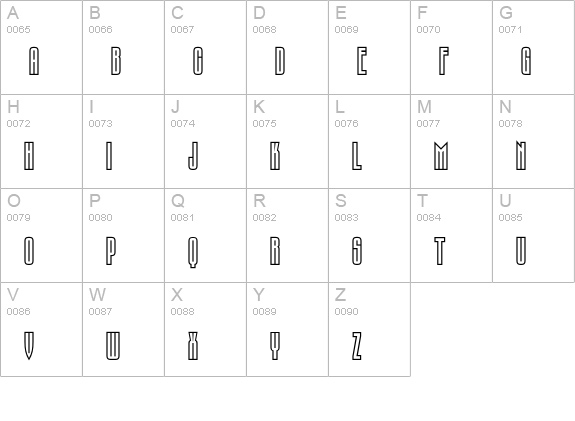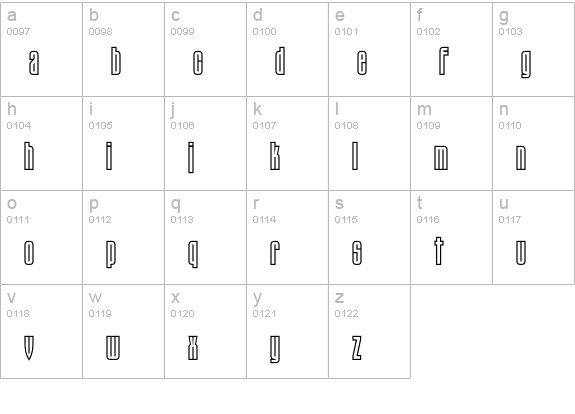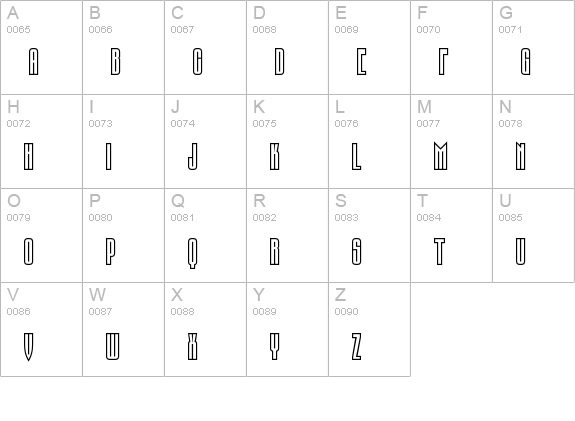
PT Tauern Cyrillic Font Details
PT Tauern Cyrillic is a stunning font that combines elegance and versatility. Its fluid and graceful letterforms make it perfect for a variety of design projects, from branding and packaging to editorial and web design. The font's unique blend of classic and modern elements adds a touch of sophistication to any visual composition. What sets PT Tauern Cyrillic apart is that it is not only visually appealing but also free to use. This means that designers and creatives can access this exceptional font without any cost or restrictions. It's a valuable resource for those who want to enhance their designs with a touch of refined typography. Whether you're working on a personal project or a professional assignment, PT Tauern Cyrillic can elevate your work to new heights. Its extensive character set includes Cyrillic letters, allowing you to craft visually captivating designs for audiences who use this script. To make it even more accessible, PT Tauern Cyrillic is freely available to download at FontsMarket.com. This convenient platform provides a seamless experience, ensuring that you can easily obtain this font and incorporate it into your creative endeavors. Download PT Tauern Cyrillic today and unlock a world of limitless design possibilities. Let this font be the catalyst for your imaginative expression, as you create visually stunning and impactful designs that leave a lasting impression.